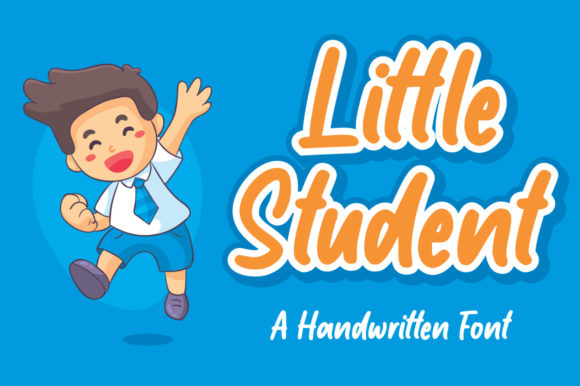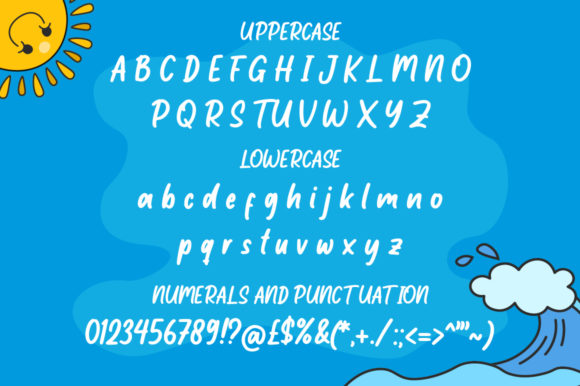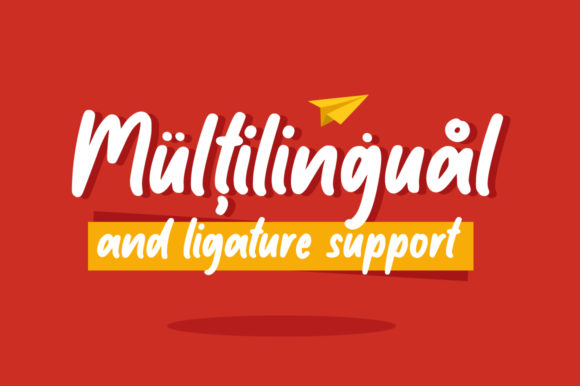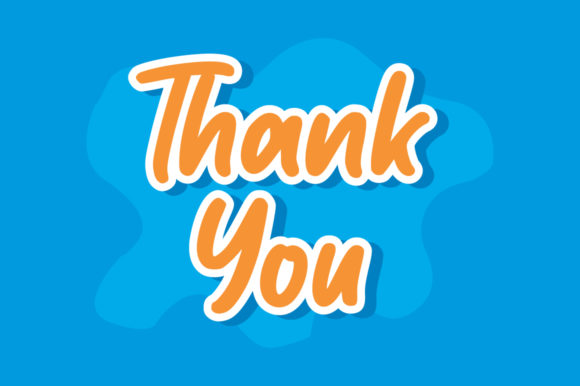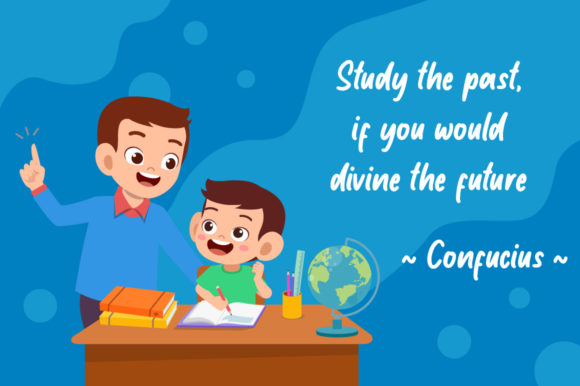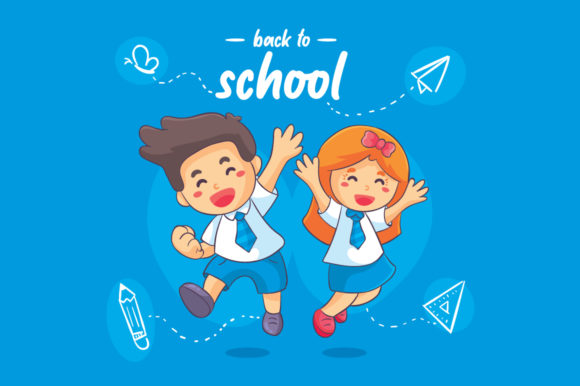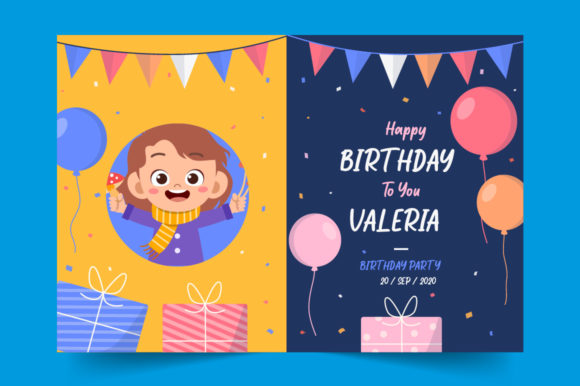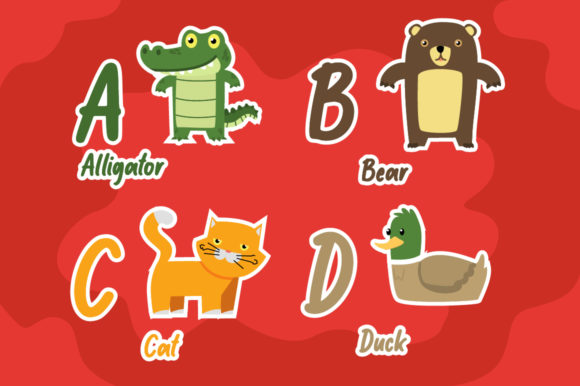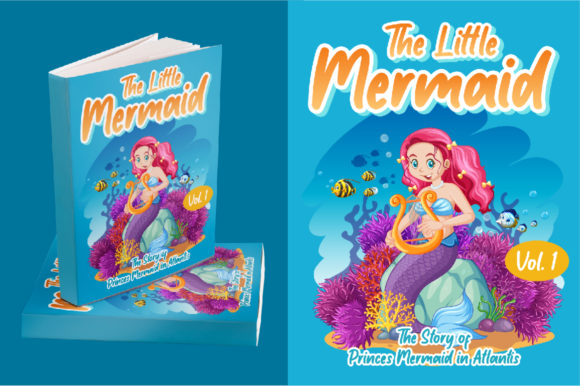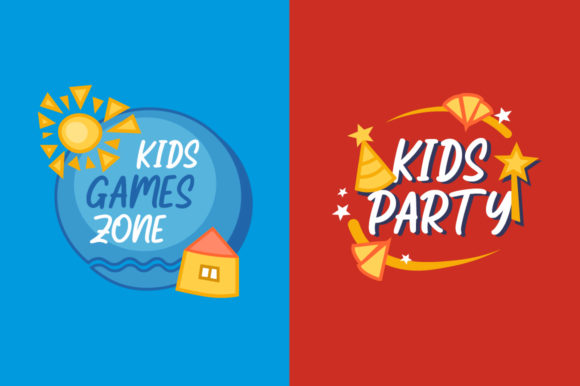
Little Student Font
About Little Student Font
Little Student is a magical handwritten font carefully created with a touch of elegance. Fall in love with its authentic feel and use it to create gorgeous wedding invitations, beautiful stationary art, eye-catching social media posts, and cute greeting cards.